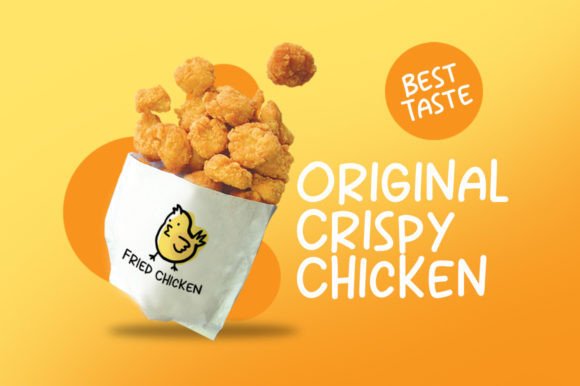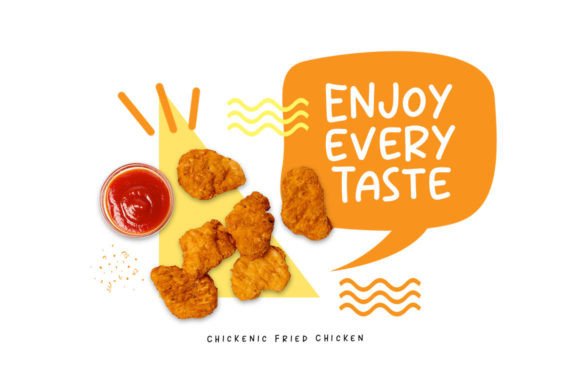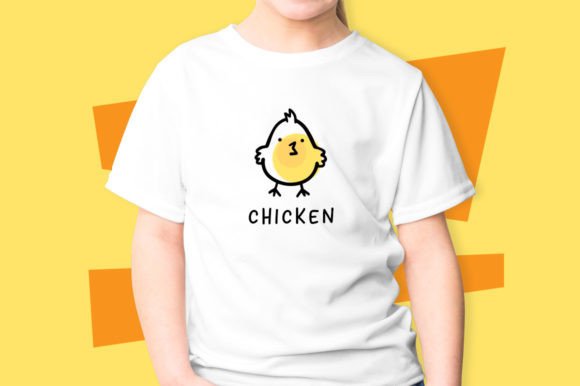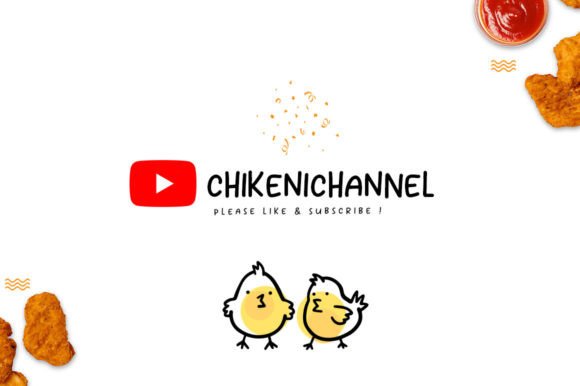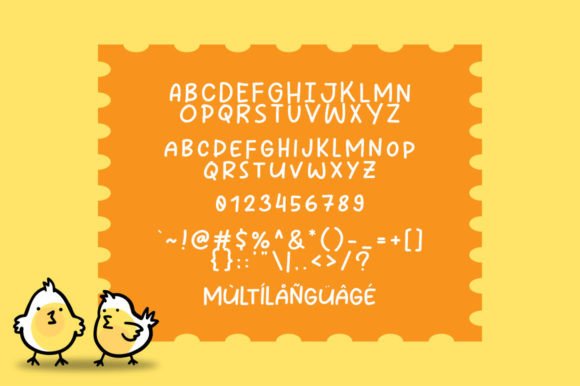
Introducing Chickenic Font: The Ultimate Modern Display Font for Creative Designs
Are you a designer or crafter looking for a unique and quirky font to elevate your creative projects? Look no further than Chickenic Font! This modern and fancy display font is perfect for a wide range of applications, from posters and logos to magazines, book covers, banners, and more. In this article, we’ll dive into the features and benefits of Chickenic Font, and explore how you can use it to create stunning designs that stand out from the crowd.
What is Chickenic Font?
Chickenic Font is a modern display font that boasts a unique and quirky style that’s sure to capture attention. With its bold and elegant lines, this font is perfect for designers and crafters who want to add a touch of personality to their projects. Whether you’re creating a poster, logo, or book cover, Chickenic Font is the perfect choice for adding a professional and eye-catching touch.
Key Features of Chickenic Font
- Modern and Fancy Design: Chickenic Font features a sleek and contemporary design that’s perfect for modern designs.
- Quirky and Unique Style: This font boasts a quirky and unique style that’s sure to stand out from the crowd.
- Highly Versatile: Chickenic Font can be used for a wide range of applications, from posters and logos to magazines, book covers, and more.
- Easily Readable: Despite its bold and elegant lines, Chickenic Font is highly readable, making it perfect for use in a variety of contexts.
Benefits of Using Chickenic Font
So why choose Chickenic Font for your next design project? Here are just a few benefits of using this amazing font:
- Adds Personality to Your Designs: Chickenic Font’s quirky and unique style adds a touch of personality to your designs, setting them apart from the crowd.
- Perfect for Branding and Advertising: With its bold and elegant lines, Chickenic Font is perfect for use in branding and advertising materials, such as logos, posters, and billboards.
How to Use Chickenic Font in Your Designs
Using Chickenic Font in your designs is easy! Here are a few tips to get you started:
- Pair with Other Fonts: Chickenic Font pairs well with other fonts, such as sans-serif fonts like Arial or Helvetica.
- Experiment with Font Sizes: Don’t be afraid to experiment with different font sizes to add visual interest to your designs.
- Add Texture and Patterns: Add texture and patterns to your designs to give them an extra layer of depth and interest.
- Use in Combination with Images: Chickenic Font looks great when used in combination with images, such as photographs or illustrations.